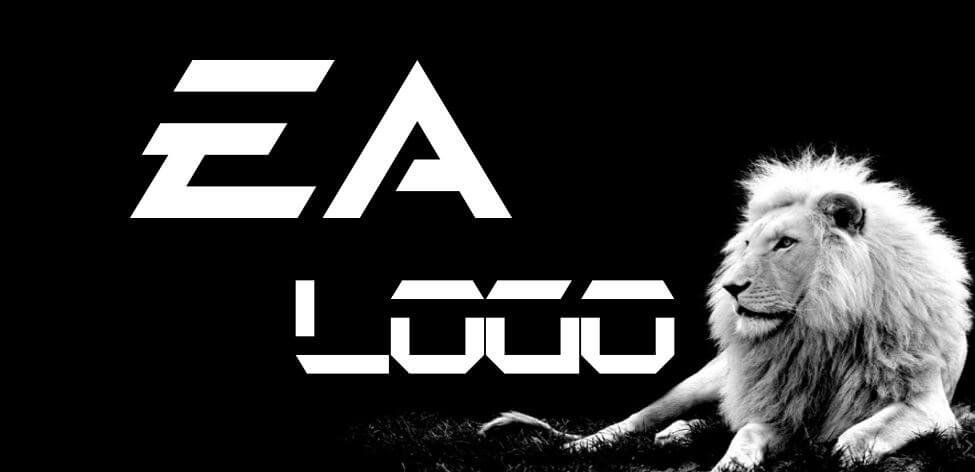
EA Logo Font font turned into made by means of 538lyons in construct, and he asked me to finalize it. That is similar to havania script the end result. The moderns sans font typeface that has numbers, upper and lower case letters. Typography is the inspiration of this antique font typeface.
It could be used for developing wedding ceremony invitations, letterheads, trademarks signatures, and masses of extra. His artwork range in a selection of patterns and strategies with a selected reason to create playful geometric figures and paperwork.
An author having a fantastic choice for font pairing continually surprise audiences along with his improvements. And in my concern that will be the great preference for attaining this step.
Because of its complete man or woman set and quirk, it is correctly discernable from different simple font families out there. And without difficulty can follow in professional and for amusing designs.
In this way, as a way to be enough for small tasks and amusement makes use of as properly. To provide an exquisite touch that is similar to southern aire a tremendous preference due to the fact this exquisite font will create a layout that viewers attract towards it.
Along with the ones, characters, various designers from various fields making use of this exquisite typeface as it is also guided implying eccentricity to guarantee it could render pointedly, and freshly.